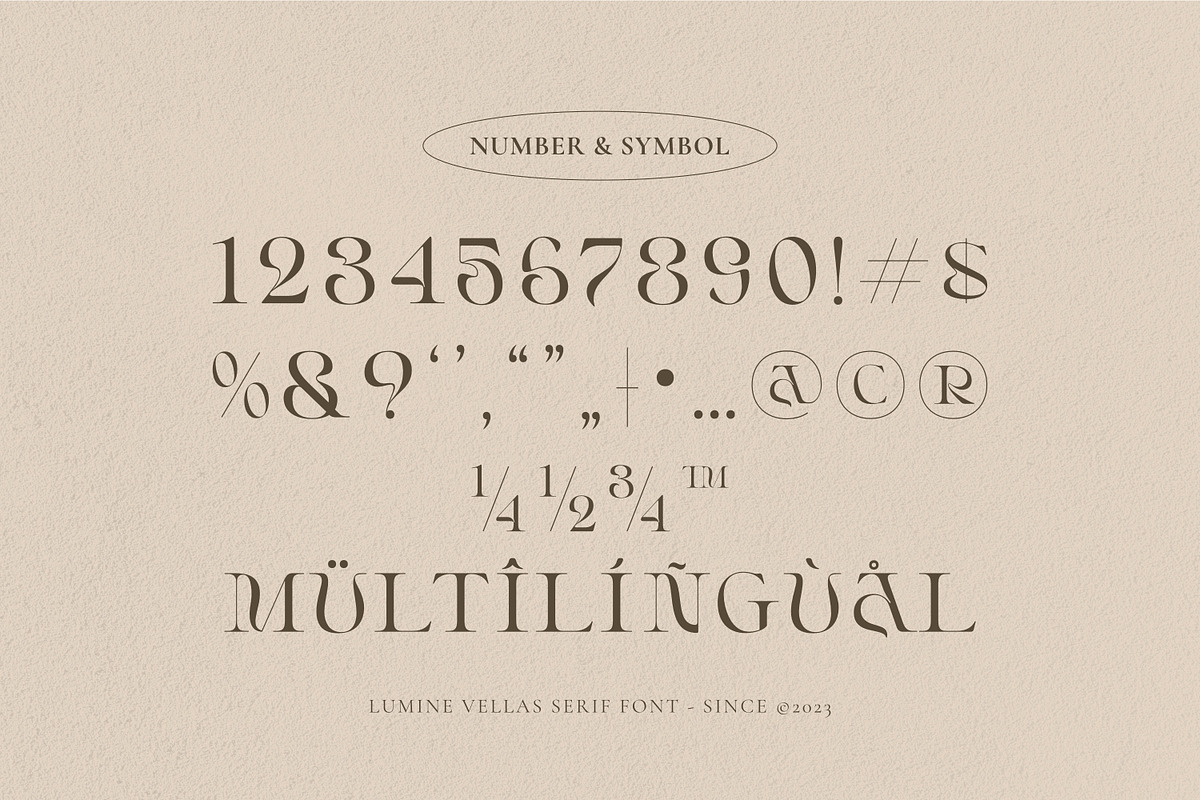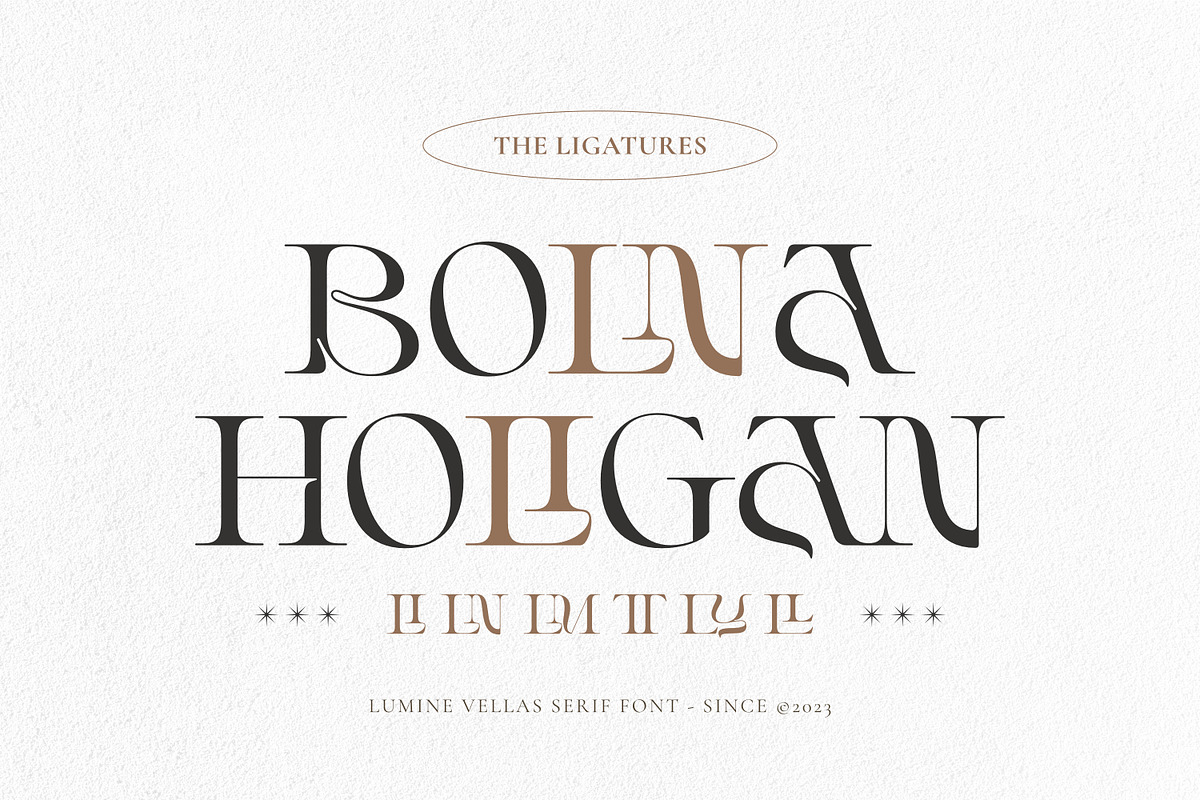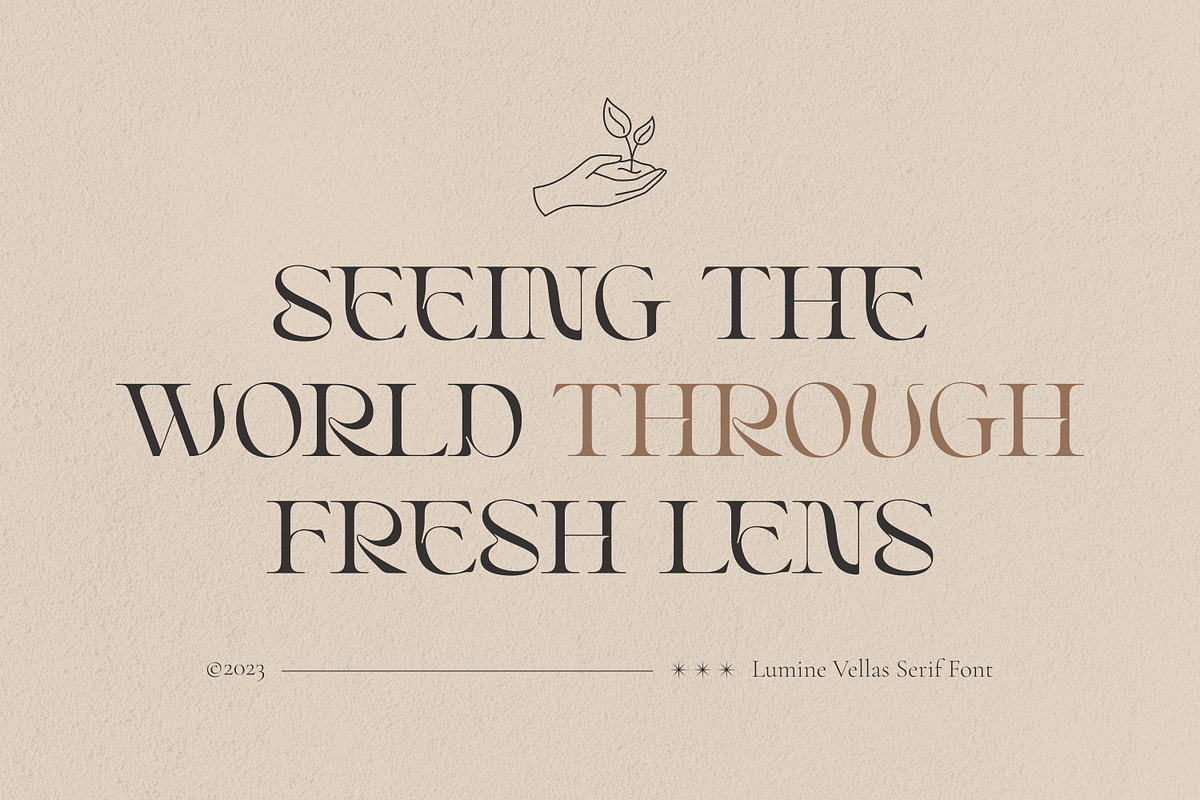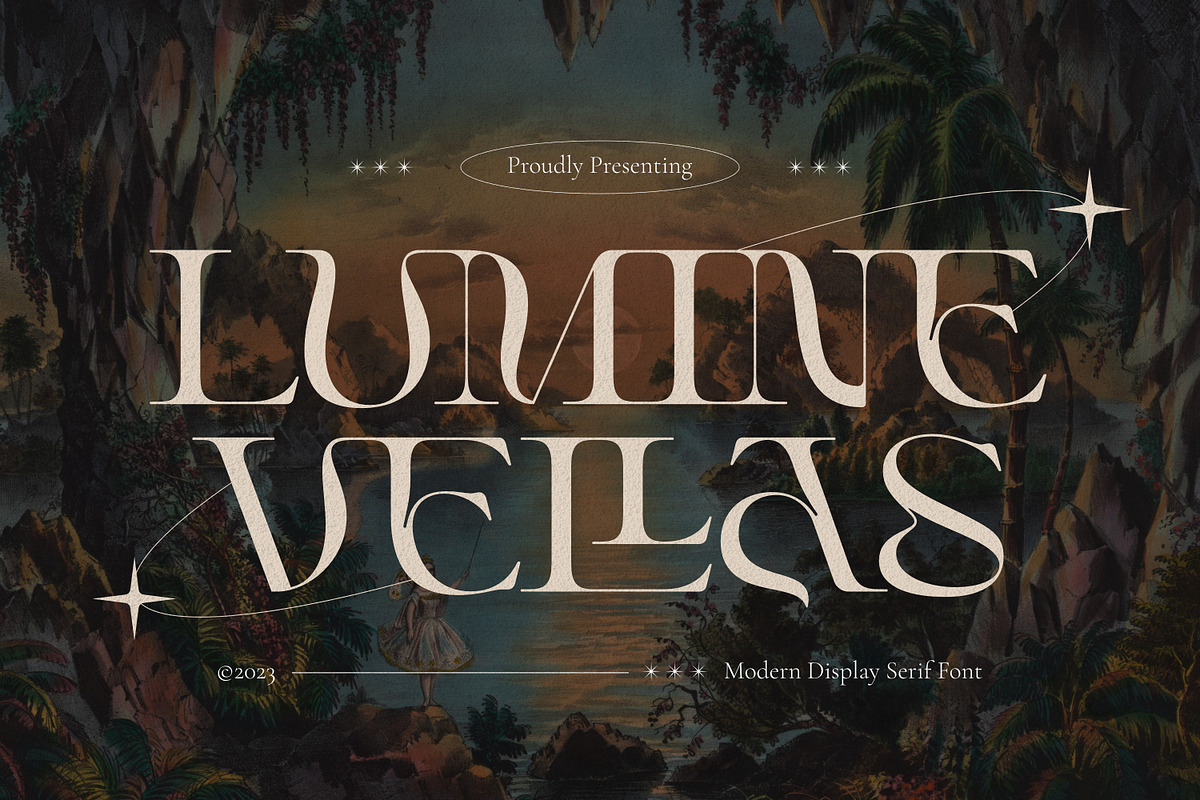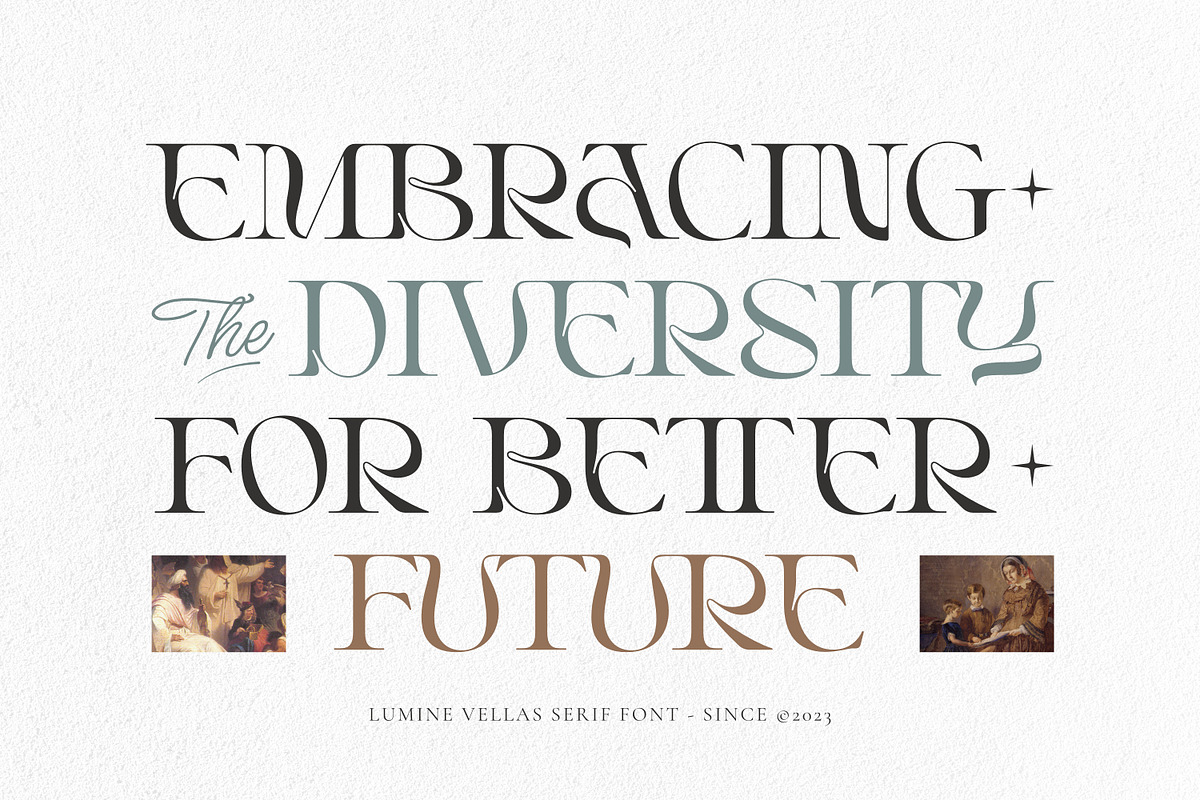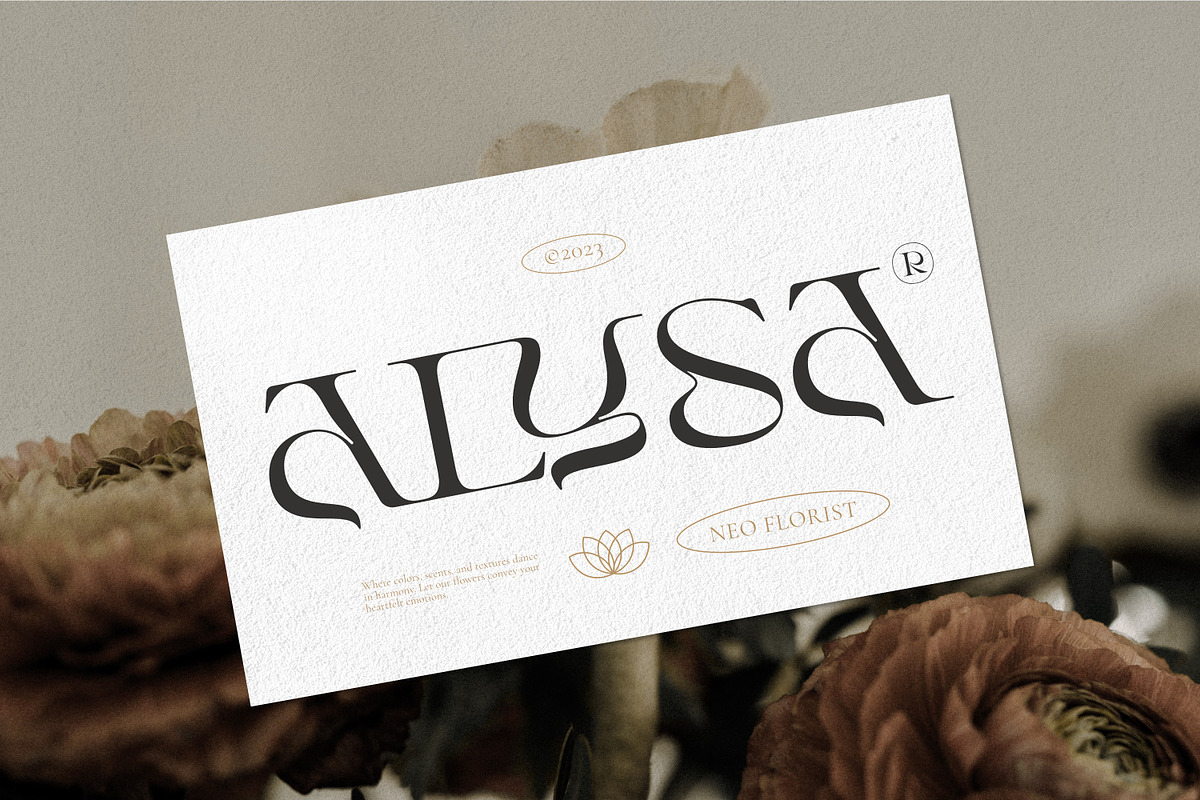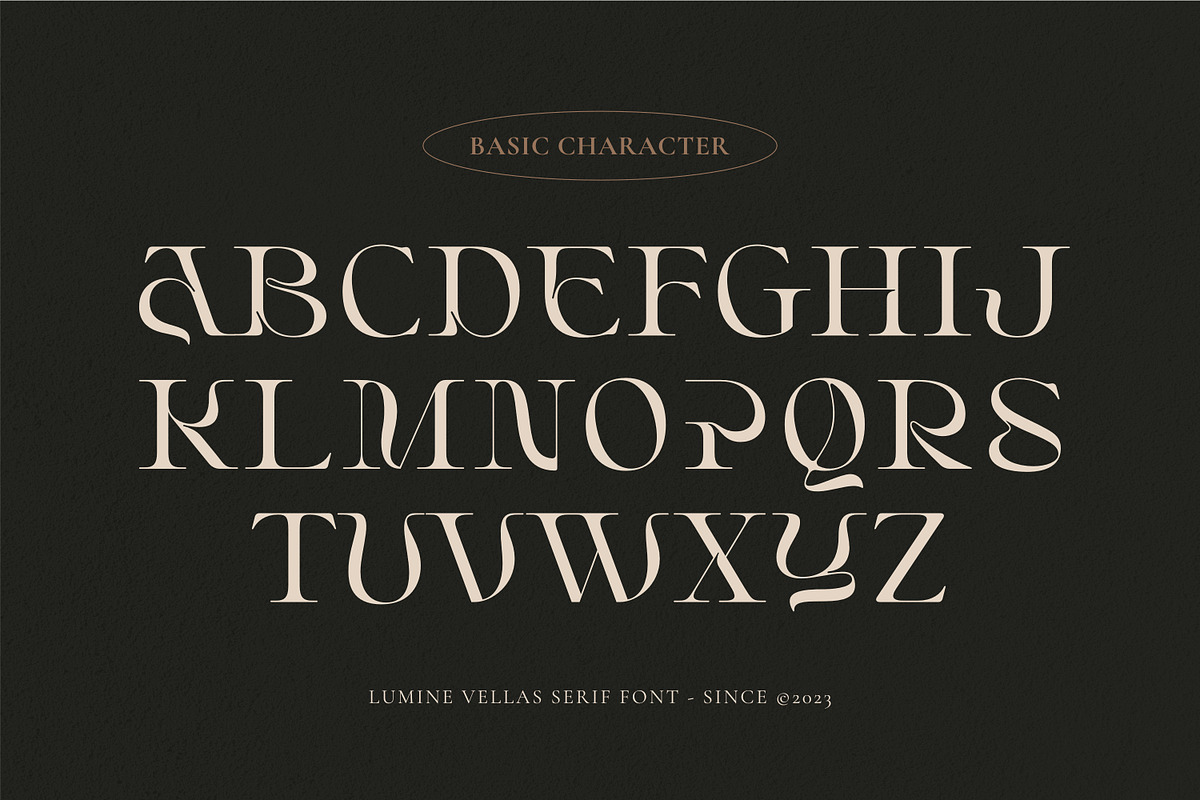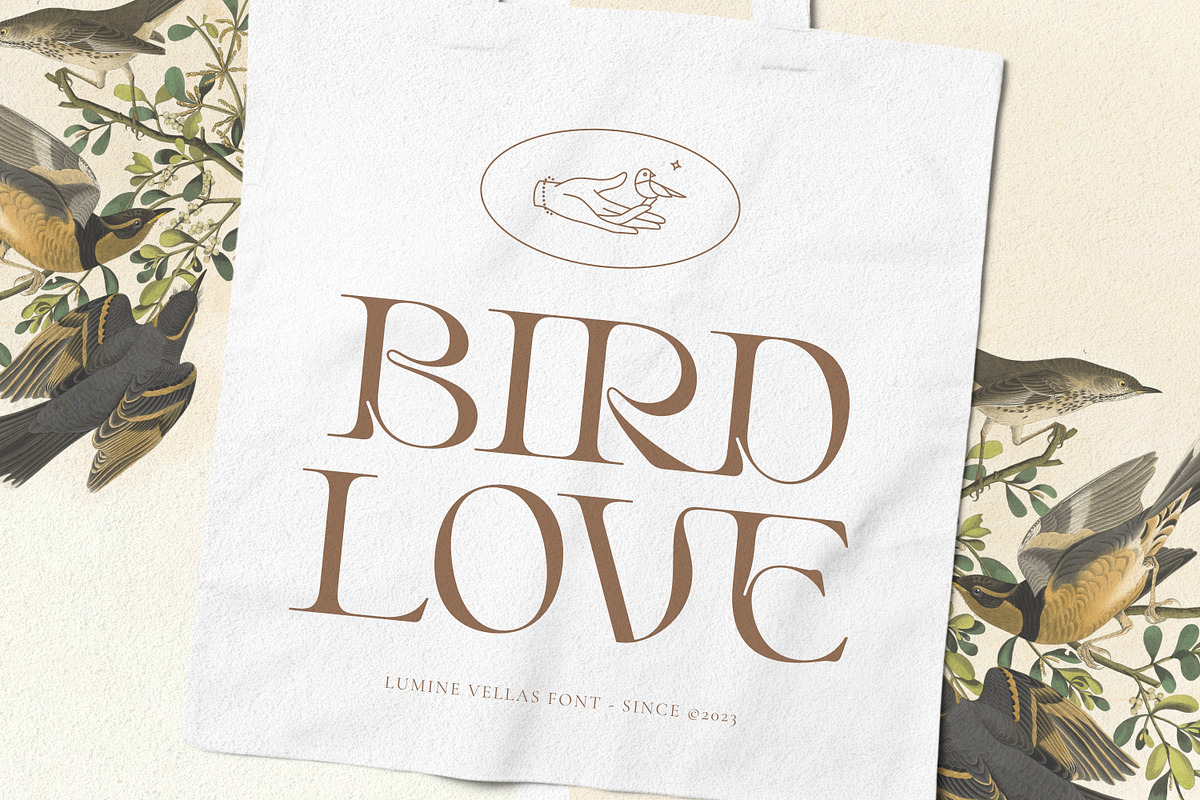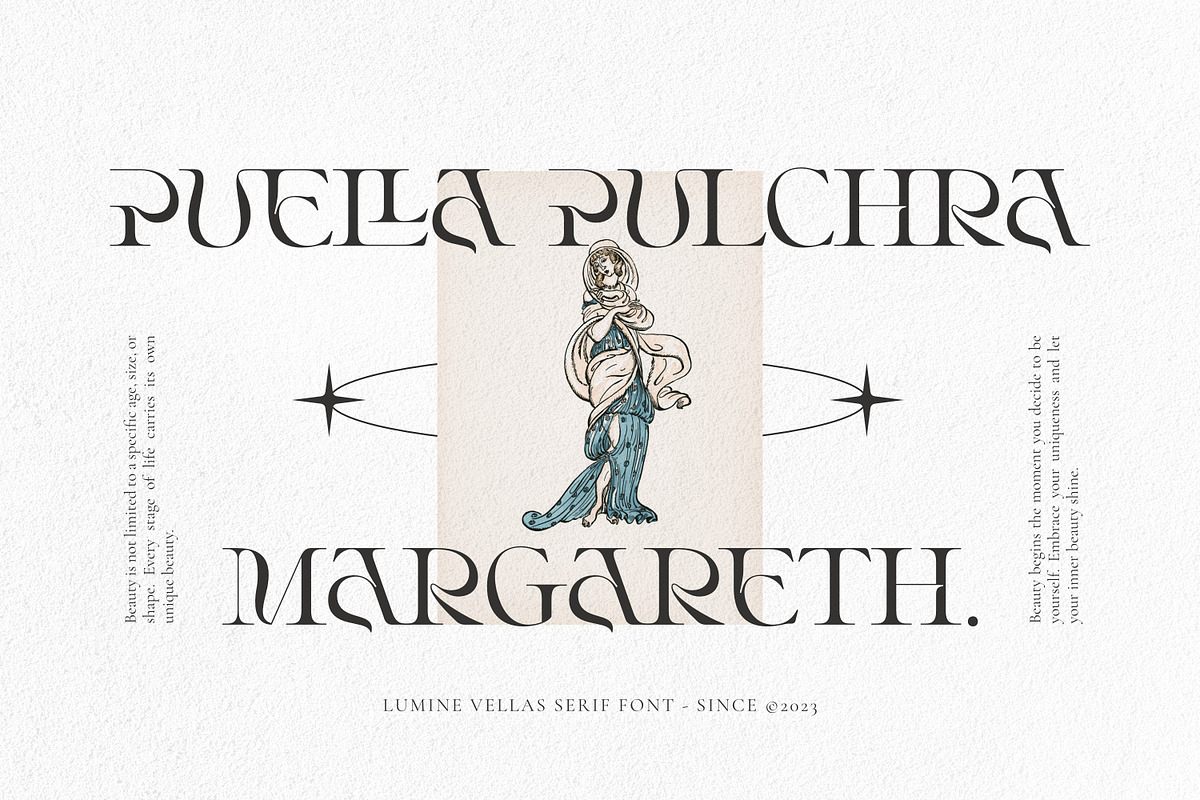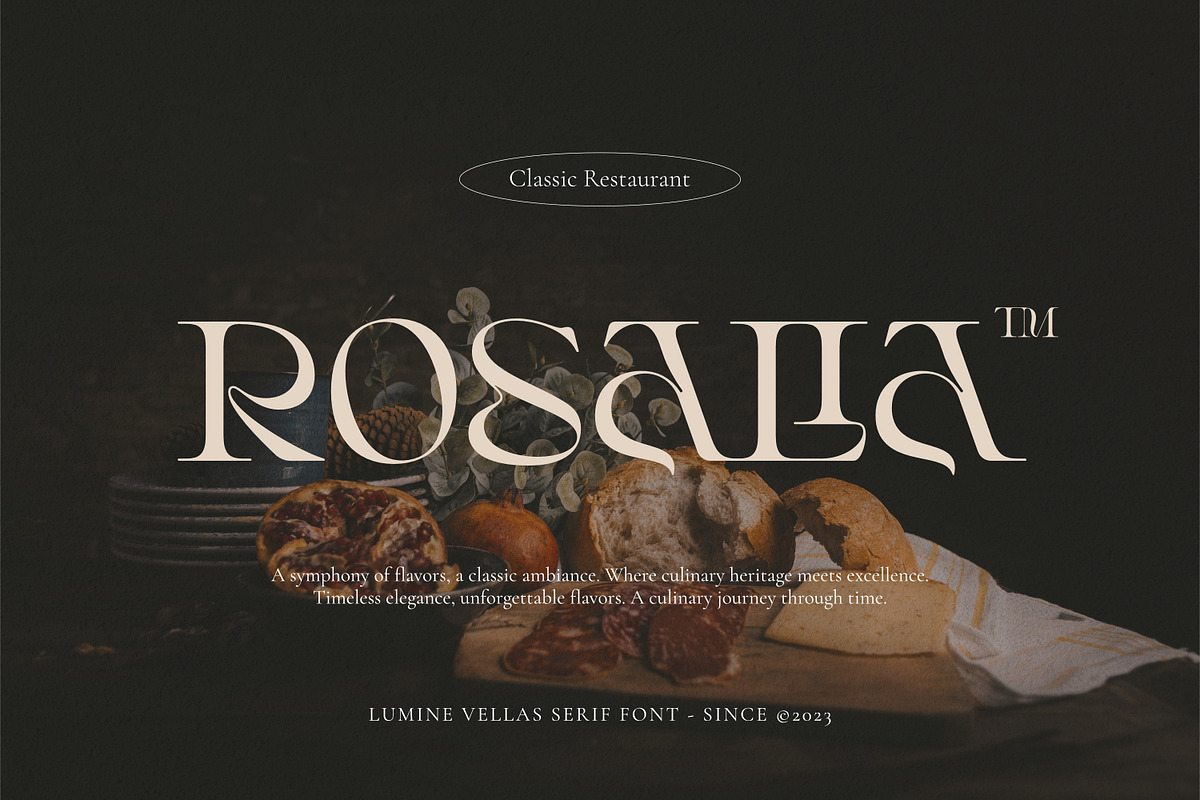
Lumine Vellas - Modern Serif
Embrace the aqua-infused elegance of our modern serif font. With fluid, graceful strokes, it captivates with its contemporary charm and timeless sophistication. Let the cascading aqua serifs dance across your designs, creating a harmonious symphony of visual delight. Elevate your typography and unleash its captivating power. Experience the fluidity and immerse your audience in its mesmerizing beauty, leaving a lasting impression.